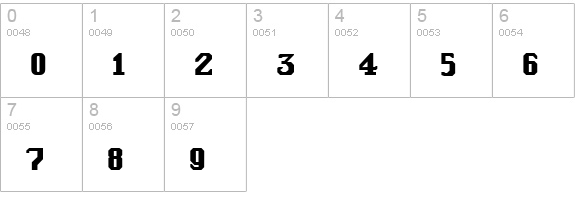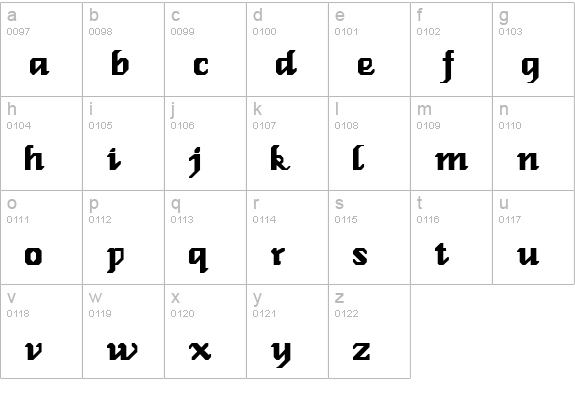
Relbe Regular Font Details
Relbe Regular is the standard, neutral variant in the Relbe typeface family \xE2\x80\x94 well suited to general body text, paragraphs, and standard typographic work.